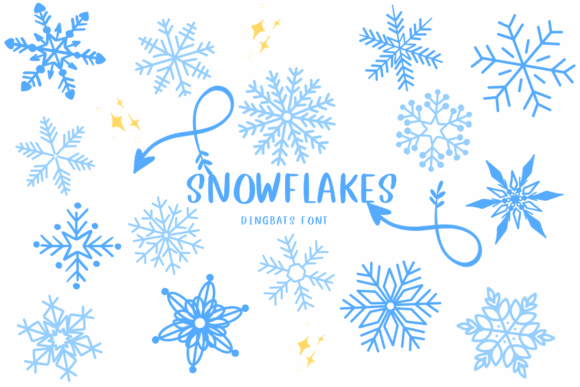
Snowflakes Font: Add a Touch of Winter Magic to Your Designs
As the winter season approaches, designers and crafters are on the lookout for unique and festive typography to add a touch of magic to their projects. If you’re looking for a font that embodies the whimsy and wonder of snowflakes, look no further than the Snowflakes font. This charming typeface pairs playful, rounded letters with intricately designed snowflake symbols, making it perfect for holiday cards, winter invitations, seasonal branding, and any project that needs a frosty flair.
What is Snowflakes Font?
Snowflakes font is a festive and whimsical typeface that features intricately designed snowflake symbols for each character. The font is designed to resemble the delicate and unique patterns found on real snowflakes, making it a perfect fit for winter-themed projects. Each letter is beautifully matched with a unique snowflake, making this font a charming and versatile choice for your winter creations.
Key Features of Snowflakes Font
- Playful and Rounded Letters: The Snowflakes font features playful and rounded letters that are perfect for creating a friendly and approachable tone in your designs.
- Intricate Snowflake Designs: Each character in the Snowflakes font is paired with a unique and intricately designed snowflake symbol, adding a touch of winter magic to your projects.
- Festive and Whimsical: The Snowflakes font has a festive and whimsical feel that’s perfect for holiday cards, winter invitations, and seasonal branding.
- Versatile: The Snowflakes font can be used for a wide range of projects, from digital designs to print materials.
Uses for Snowflakes Font
The Snowflakes font is perfect for a variety of winter-themed projects, including:
- Holiday Cards: Add a touch of winter magic to your holiday cards with the Snowflakes font.
- Winter Invitations: Create festive and fun winter invitations for parties, events, and gatherings.
- Seasonal Branding: Use the Snowflakes font to create a winter-themed brand identity for your business or organization.
- Winter-themed Designs: Add a touch of whimsy and wonder to your winter-themed designs, including posters, flyers, and social media graphics.
Tips for Using Snowflakes Font
Here are a few tips for using the Snowflakes font in your designs:
- Pair with Bold Colors: Pair the Snowflakes font with bold and bright colors to create a festive and eye-catching design.
- Use for Headlines: Use the Snowflakes font for headlines and titles to add a touch of whimsy and wonder to your designs.
- Experiment with Sizes: Experiment with different font sizes to create visual interest and hierarchy in your designs.
- Combine with Other Fonts: Combine the Snowflakes font with other fonts to create a unique and interesting typography combination.
Benefits of Using Snowflakes Font
Here are a few benefits of using the Snowflakes font in your designs:
- Unique and Festive: The Snowflakes font adds a unique and festive touch to your designs, making them stand out from the crowd.
- Easy to Read: The Snowflakes font is easy to read and understand, making it perfect for use in a variety of designs.
- Versatile: The Snowflakes font can be used for a wide range of projects, from digital designs to print materials.
- Time-Saving: The Snowflakes font saves you time and effort in designing and creating winter-themed projects from scratch.
FAQs About Snowflakes Font
- Q: What is Snowflakes font?
- A: Snowflakes font is a festive and whimsical typeface that features intricately designed snowflake symbols for each character.